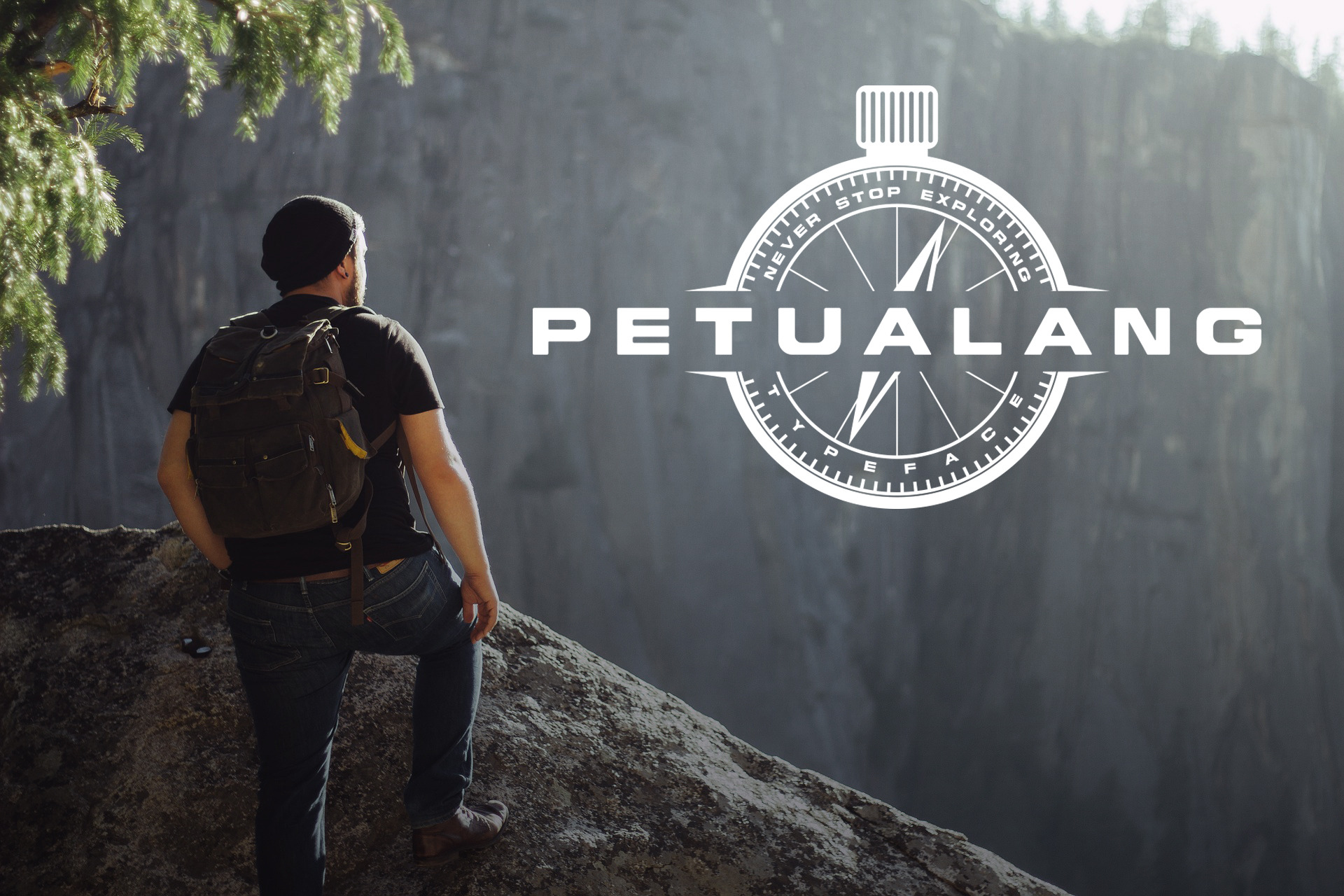
Petualang typeface
Petualang is typeface that made with precision bold character. Petualang from indonesian language which mean adventure. This typeface is perfect for display, headline, logotype and more. If you have a question, feel free to message me Thanks :)